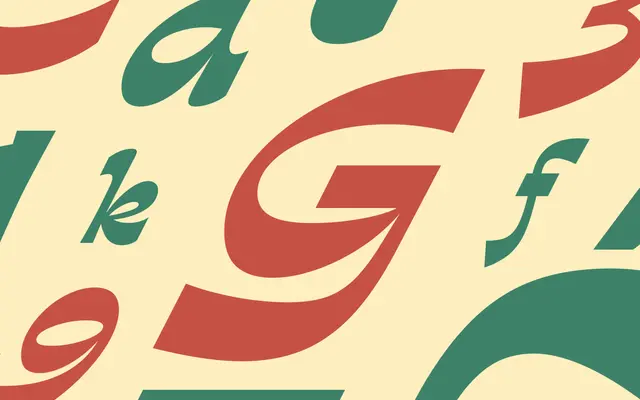
Gardez
Gardez specimen from Dalton Maag
A bold garalde italic with inverted contrast, drawn for packaging, posters and book covers.
A serif display by Rafael Saraiva that fuses inverted contrast with a bold, garalde-style italic. Dalton Maag pitch it for packaging, logos, posters, magazines and book covers, where its expressive contrast does the heavy lifting. The italic-only construction makes it a specialist headline face rather than a workhorse, and the support is Latin only.
Dalton Maag describes Gardez as a serif display font born from introducing inverted contrast into a bold, garalde-style italic, producing a highly expressive design.